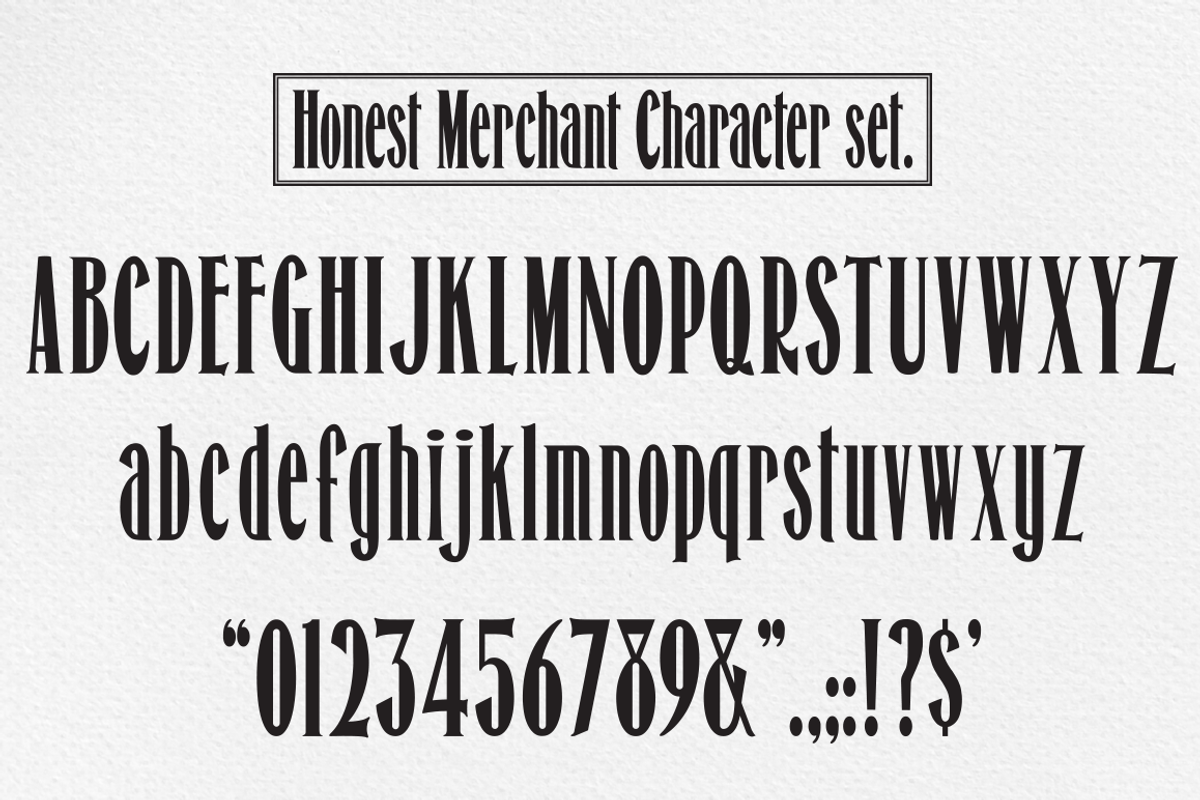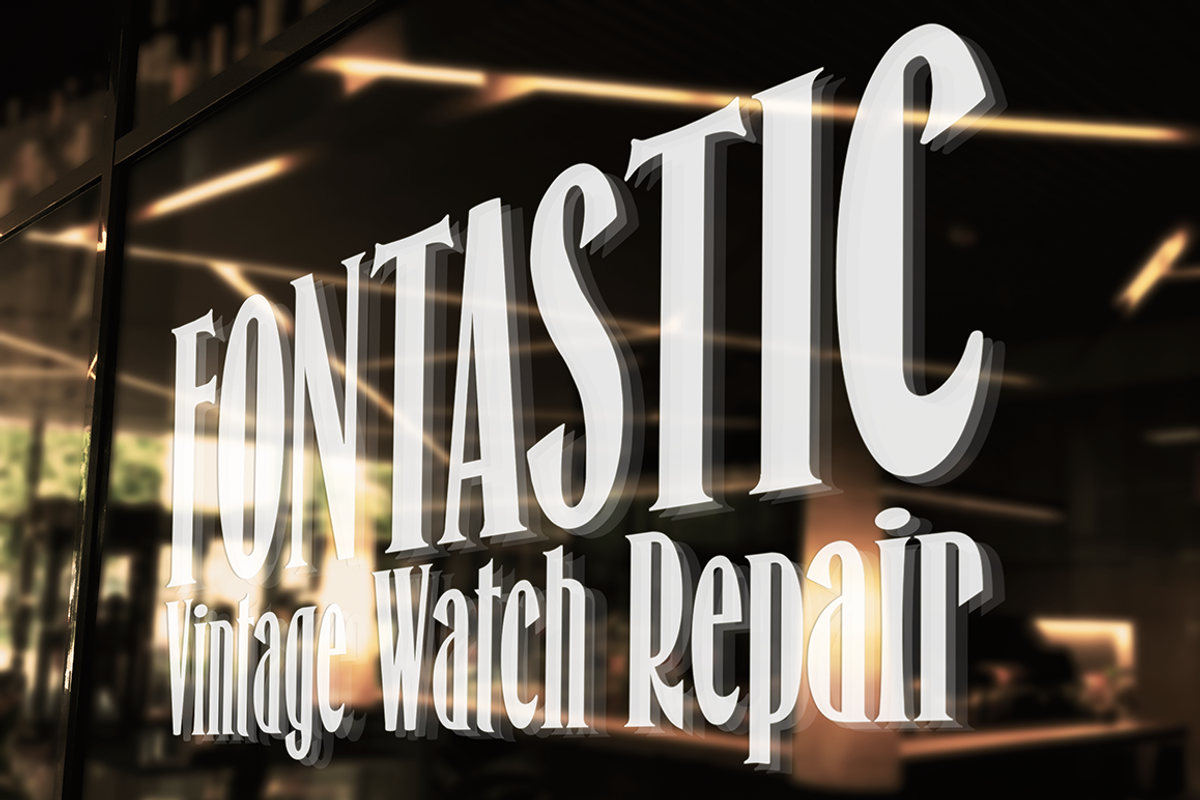
Honest Merchant Font
Honest Merchant Font by Tom Kolter Fun Shop is a font selected for branding, posters, packaging, typography.
- Upper and lowercase characters.
Honest Merchant Font by Tom Kolter Fun Shop fits naturally into Branding, posters, packaging, typography.